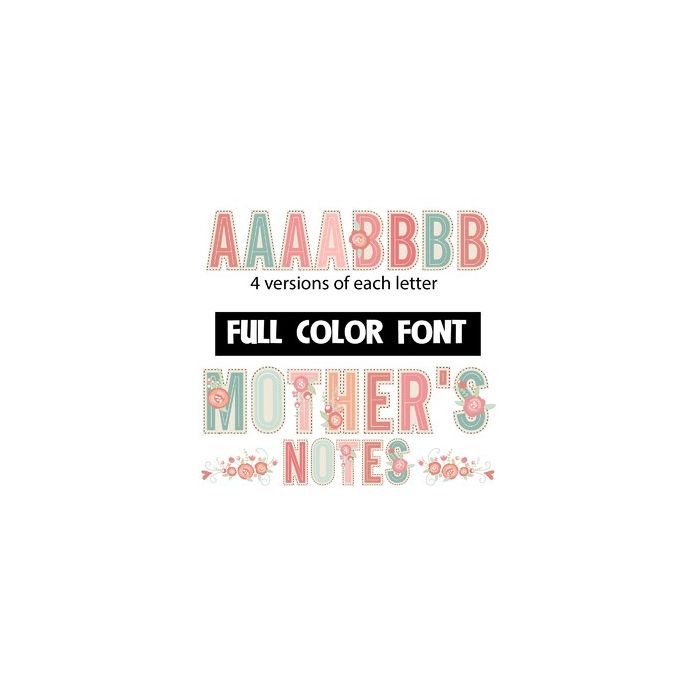
This full-color font features a spring color palette and flowers here and there. There is an alt upper and lowercase with additional colors that you can access through Silhouette's glyph map. Use the triangle brackets to add a beautiful flourished spray to your words.